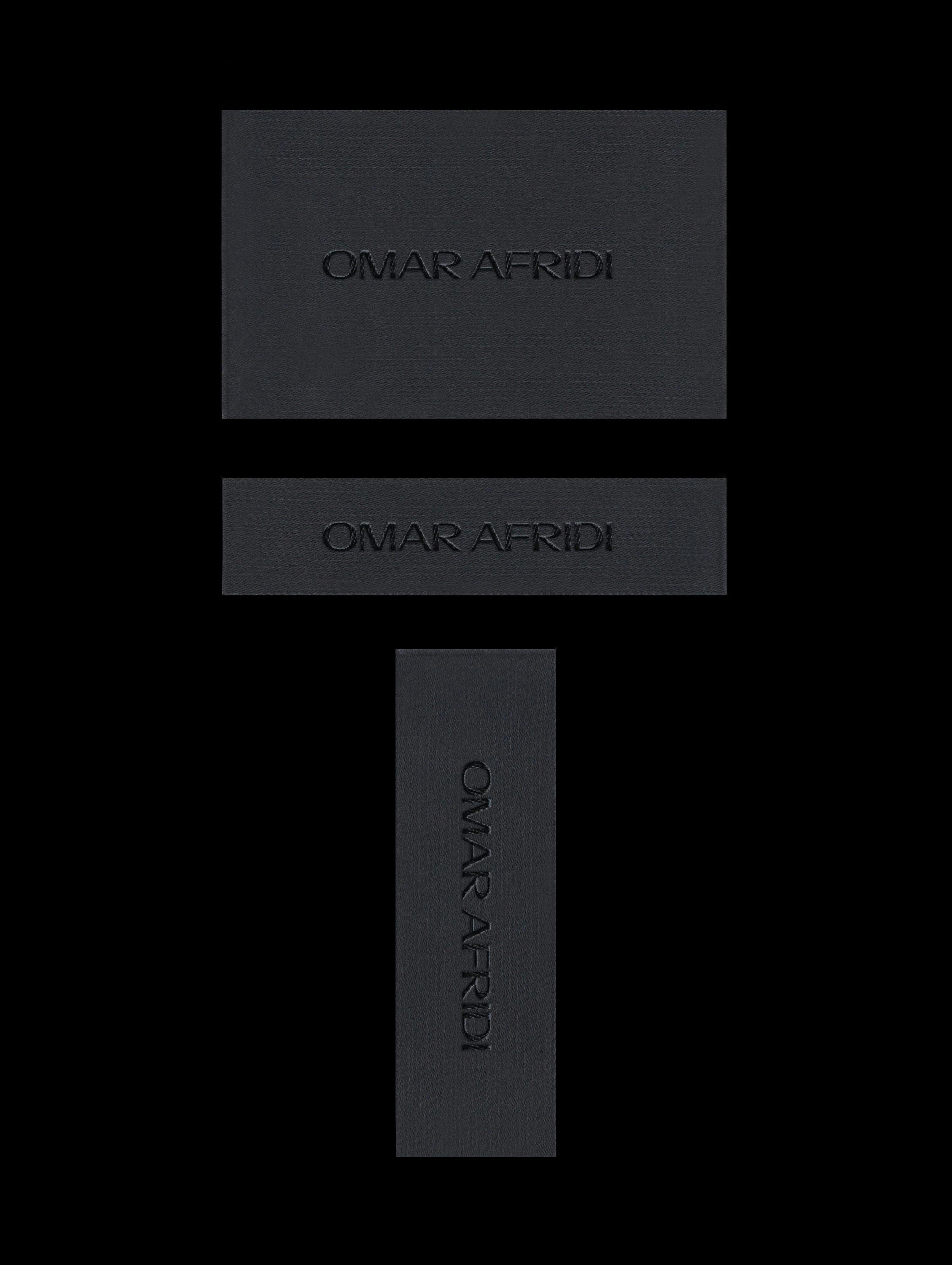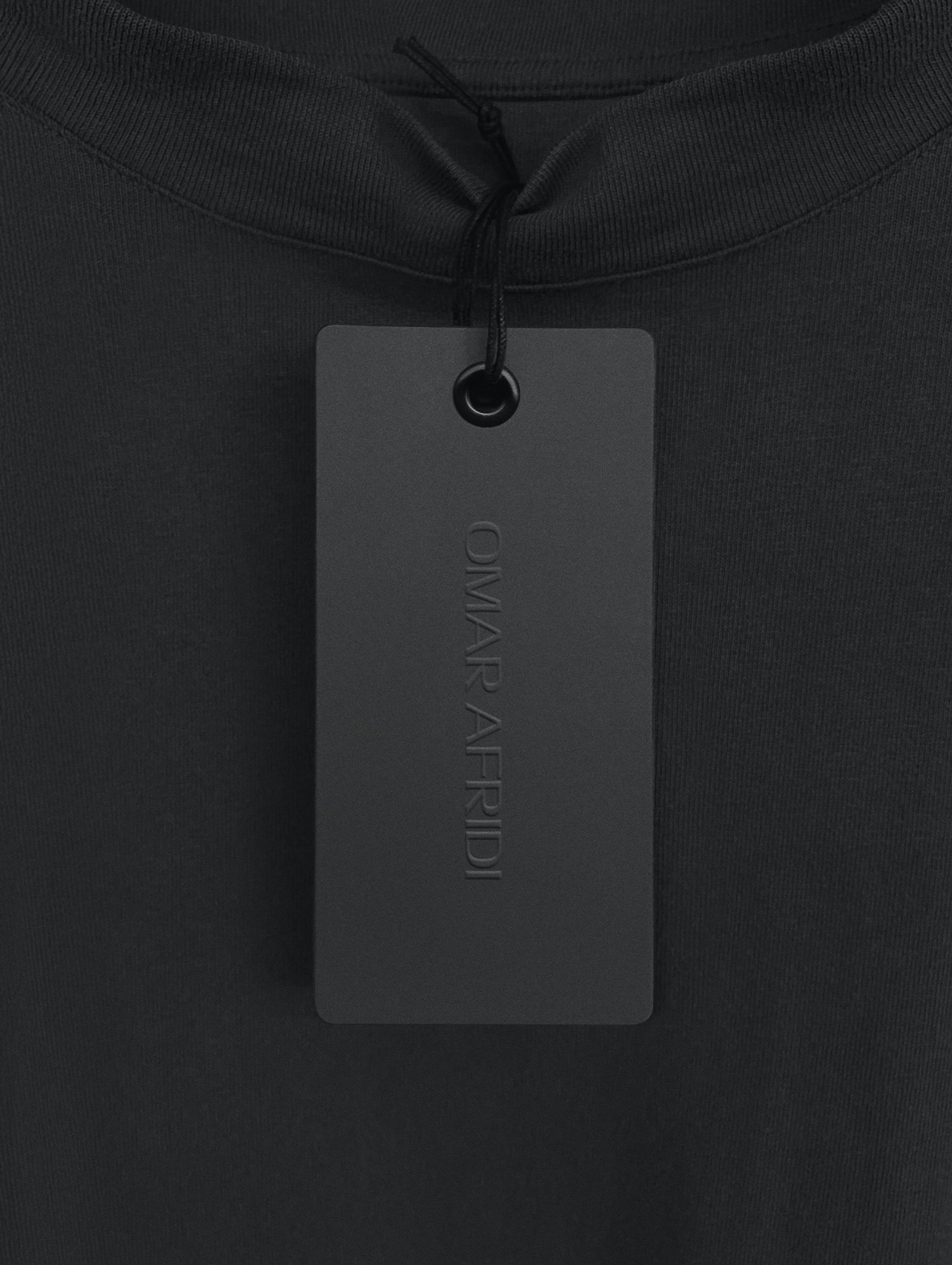
BRITISH STANDARD TYPE was commissioned by OMAR AFRIDI to create a bespoke typeface system reflecting the brand’s evolving philosophy of craftsmanship, culture, and innovation. The result is a dynamic family of four fonts: OA Display, OA Wide, OA Mid, and OA Narrow, each designed for specific roles within the brand’s communication hierarchy.
The OA logotype serves as the cornerstone of the typographic system, merging modern rigour with expressive humanism. A medium-weight cut, featuring bracketed shoulders, a wide stance, and flared terminals, establishes a sophisticated and modern identity. Structural clarity and confident proportions reflect OMAR AFRIDI's focus on craftsmanship, quality, and attention to detail.
The typeface explores a tension between technical precision and humanist expression. Technical elements ensure clarity and performance for modern industry applications, while subtle humanist details—such as the organic modulation of stroke contrast and flared terminals—preserve a sense of warmth and classical form. This balance encapsulates an interplay of human language versus contemporary form.
OA Display
OA Headline (Wide)
OA Headline (Mid)
OA Headline (Narrow)
The typeface system is led by OA Display, the most expressive and ornamental for large-scale applications, while OA Wide, OA Mid, and OA Narrow offer versatility across packaging, editorial, and digital platforms. Together, they form a cohesive and dynamic typographic language suitable for diverse contexts.
Typeface: OA Display & Headline
4 Styles: Display, Wide Headline, Mid Headline, Narrow Headline
Classification: Humanist Sans Serif